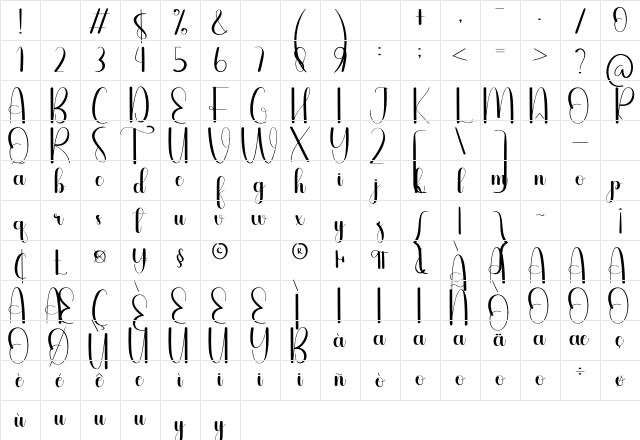
Keylove Regular Free Font
Keylove Regular
Complete Keylove Regular glyph index. Displaying only characters natively supported by Keylove Regular font.
Design Context for Keylove
Keylove is a composed and adaptable typeface that performs quietly and consistently across a wide range of design contexts.